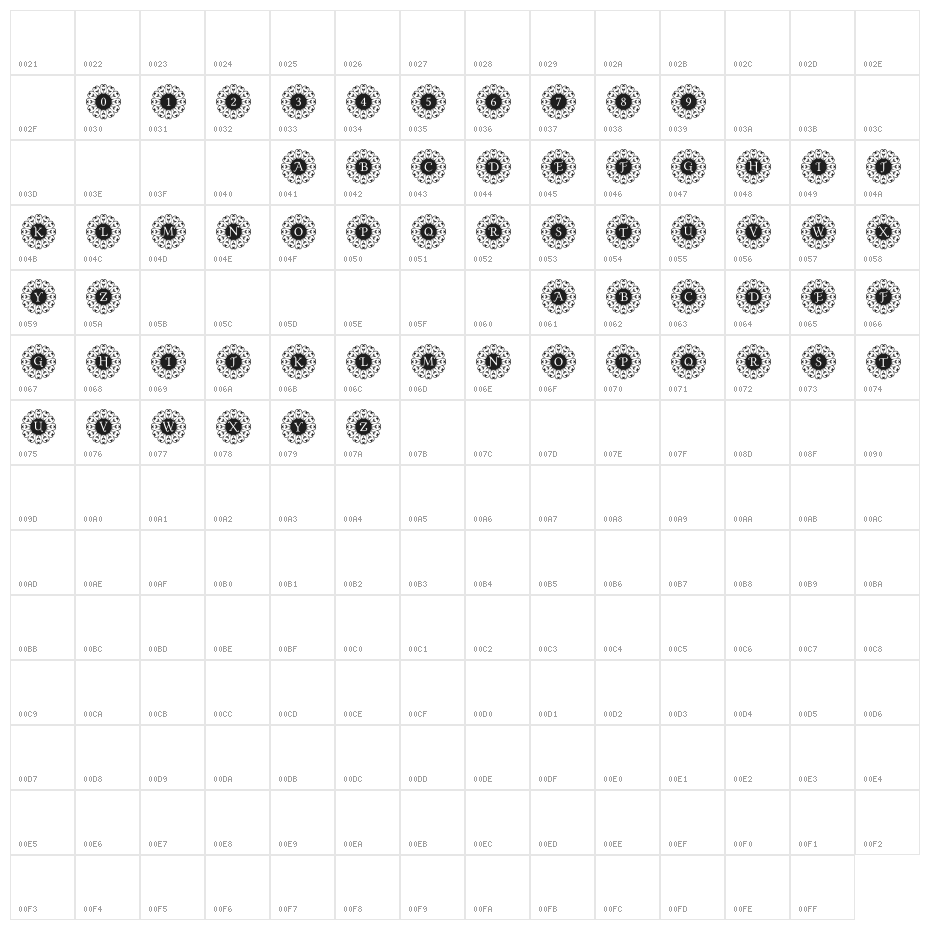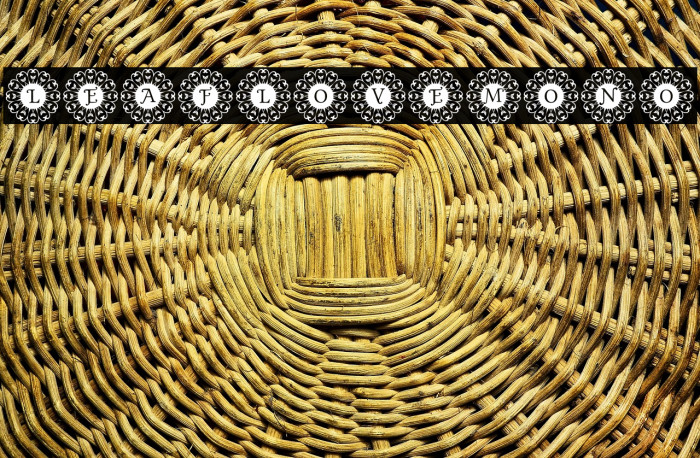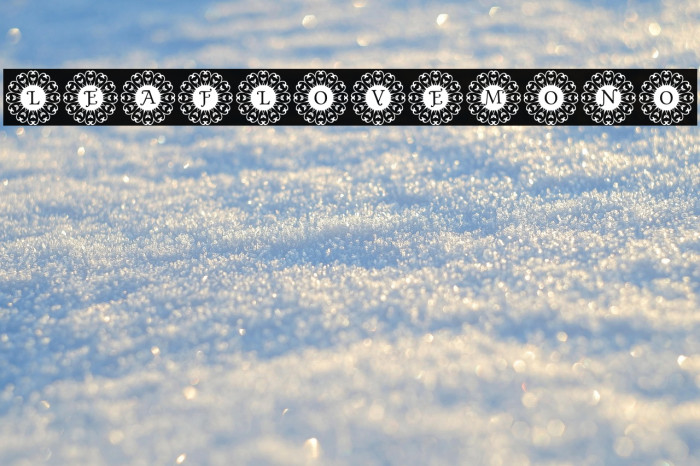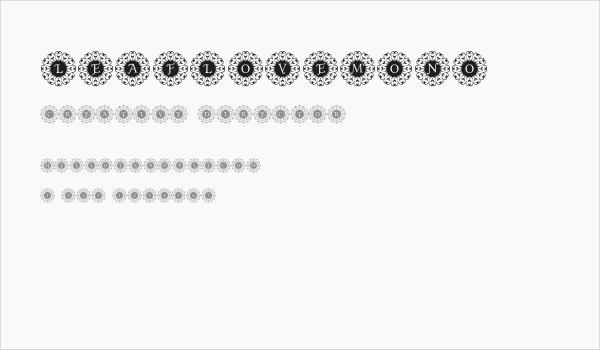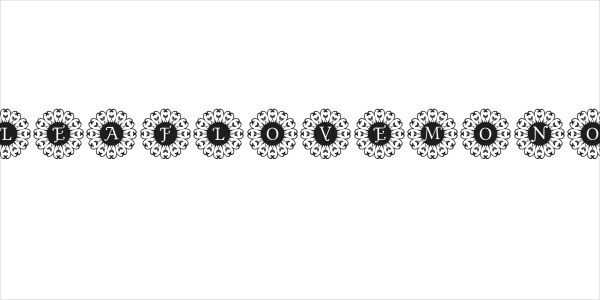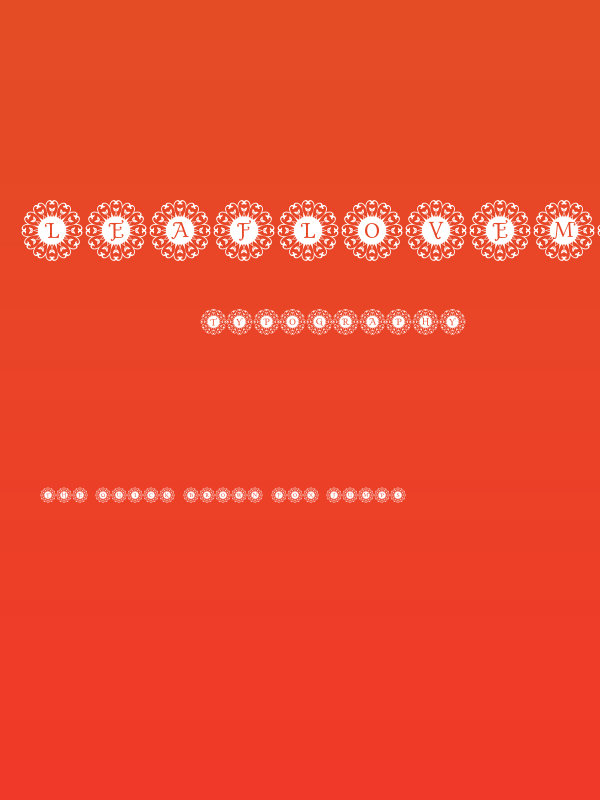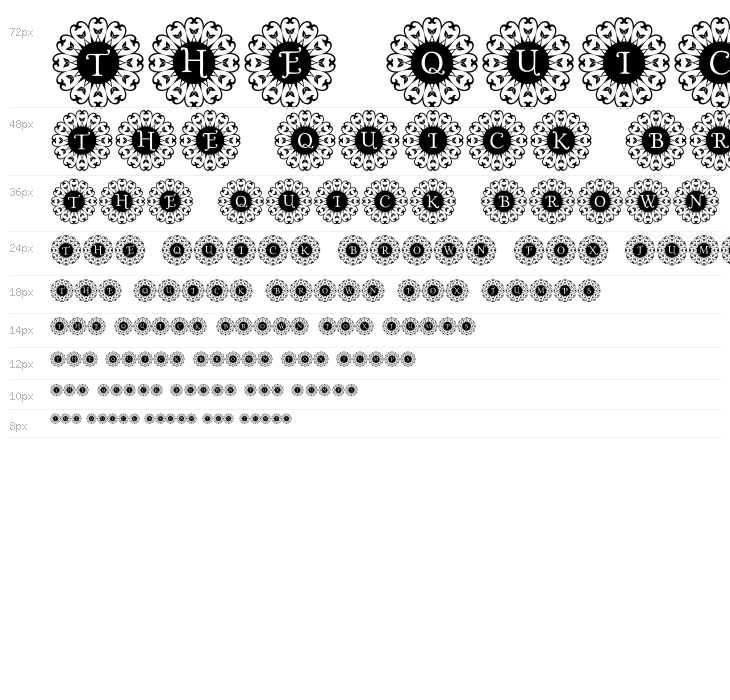
Leaf_Love_Mono Font
Leaf_Love_Mono Description
This font features a unique and decorative style, where each character is encased within an ornate, circular leaf pattern. The letters are bold and clear, set against a contrasting background that enhances readability while maintaining an artistic flair. The intricate leaf design surrounding each character adds a touch of elegance and sophistication, making it suitable for projects that require a distinctive and eye-catching appearance. The font maintains uniformity across uppercase, lowercase, and numerical characters, ensuring consistency in design.
| Proposed Projects | Ideal for wedding invitations, greeting cards, branding materials, and decorative posters. |